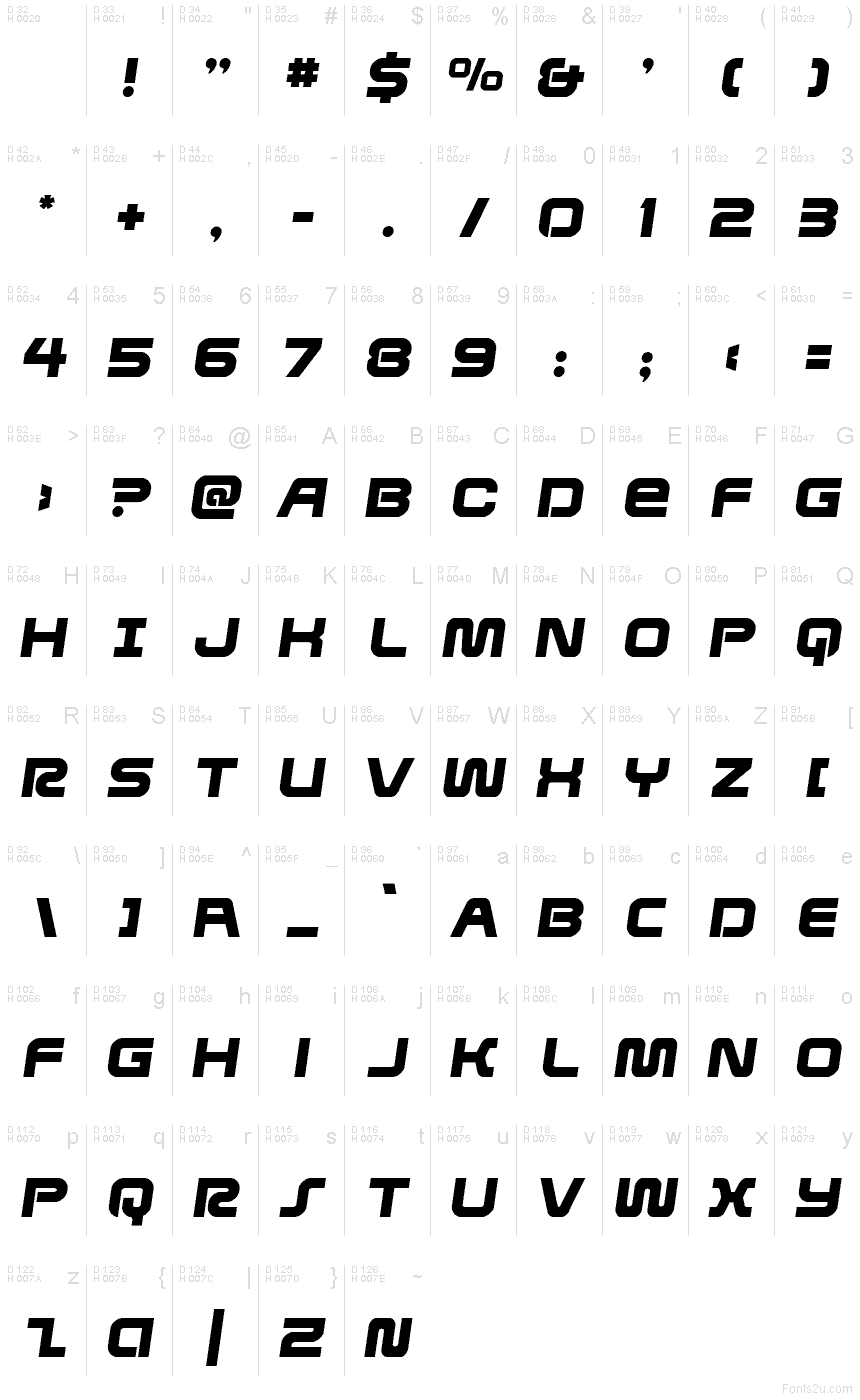
Rocket Command Semi-Italic
Rocket Command Semi-Italic font by Iconian Fonts is an expanded techno display font with a futuristic style. It draws its inspiration from retro geometric typography and showcases an uneven appearance with thick and thin strokes. Its characters have a modular structure that offers a quirky vibe.